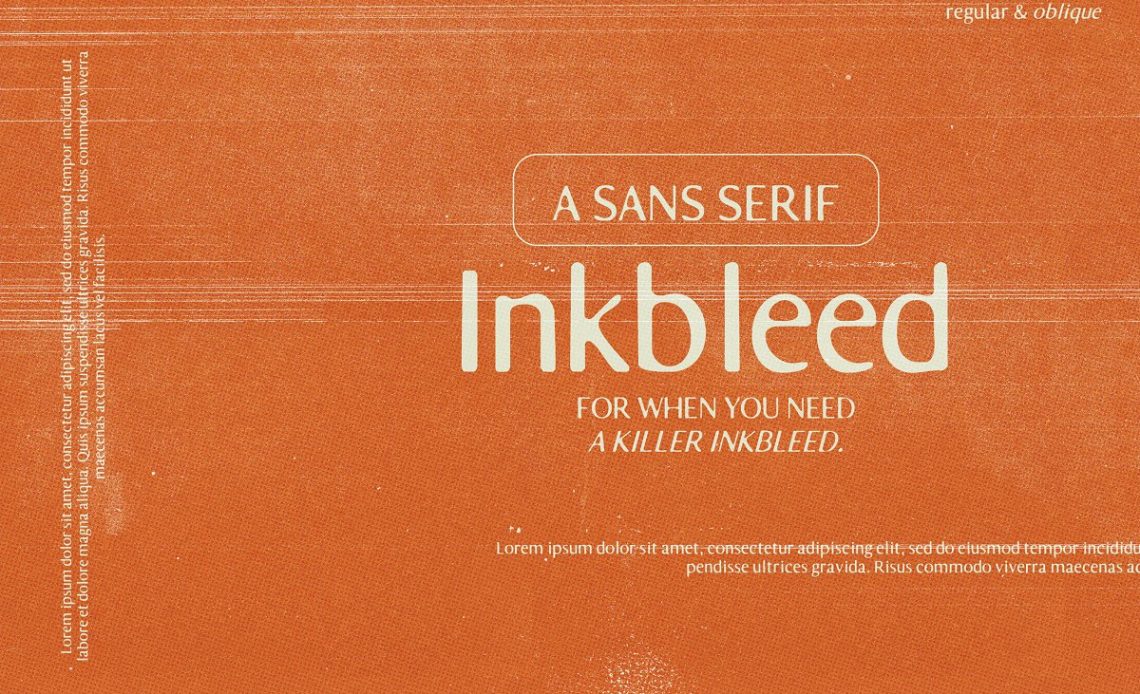
Welcome to Inkbleed Sans Typeface, the Best Font For A Printed Letter created by the talented Nicky Laatz. Inkbleed Sans is a unique and captivating font family that brings a rustic and minimalistic look to any design. Its printing-pressed and 'bleeding ink' style is perfect for those who want to add a touch of originality and creativity to their work.
With Inkbleed Sans, you don't have to worry about your design looking too 'clean.' This font family offers two fonts that are great for smaller sizes too. Plus, you can play around with the letterspacing to create different effects and make your designs stand out even more. The oblique version is also included, giving you even more options to work with.
Inkbleed Sans is not just any font family; it's a versatile and flexible tool that can be used for a wide range of designs. From branding to merchandise, book covers to posters, packaging to so much more, Inkbleed Sans has got you covered. It's the perfect choice for those who want to add a touch of personality and character to their designs.
And the best part? Inkbleed Sans supports a variety of languages, including English, French, Friulian, Galician, German (Switzerland), Low German, Luxembourgish, Norwegian Bokmål, Norwegian Nynorsk, Portuguese, Spanish, Swedish and Swiss German. So, no matter where you are in the world, Inkbleed Sans can help you communicate your message with style and elegance.